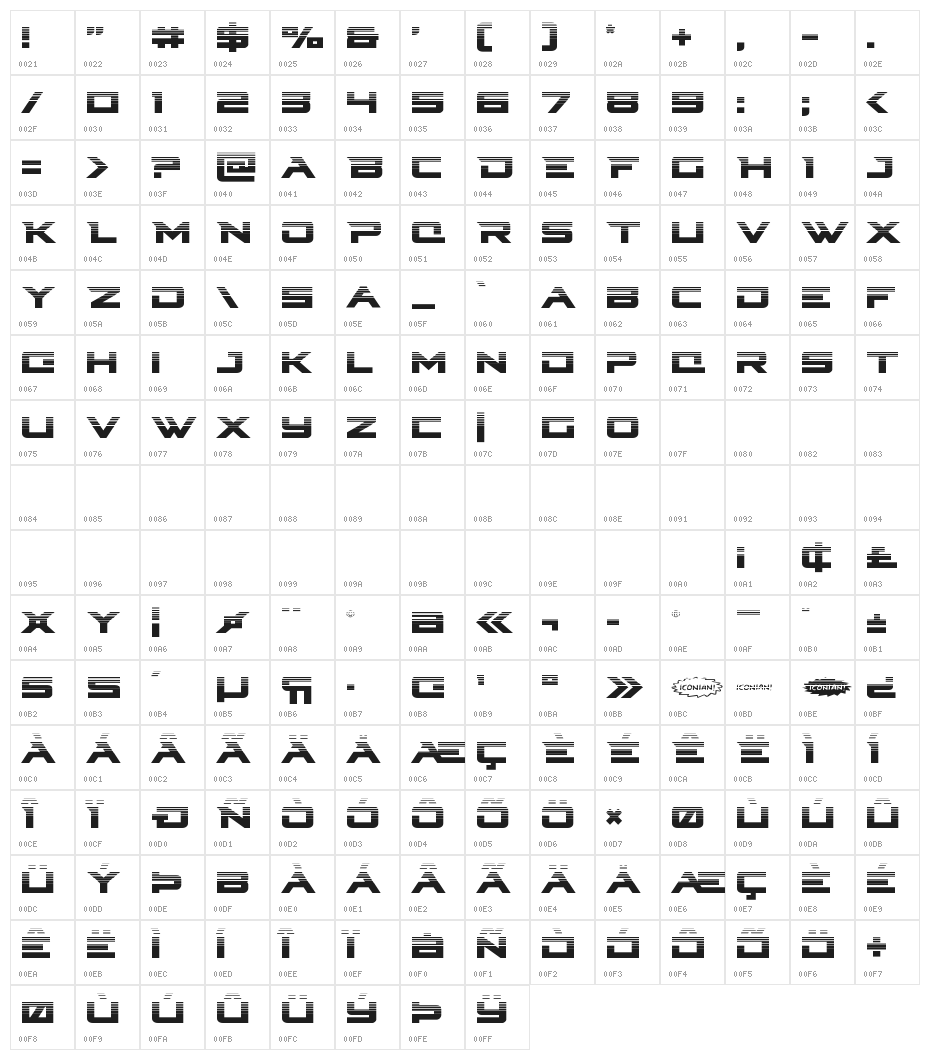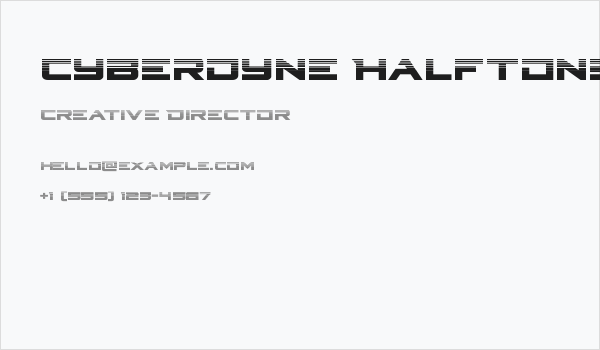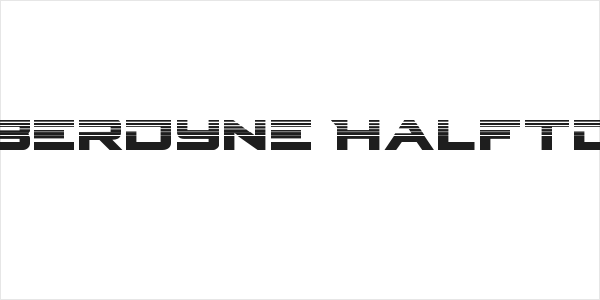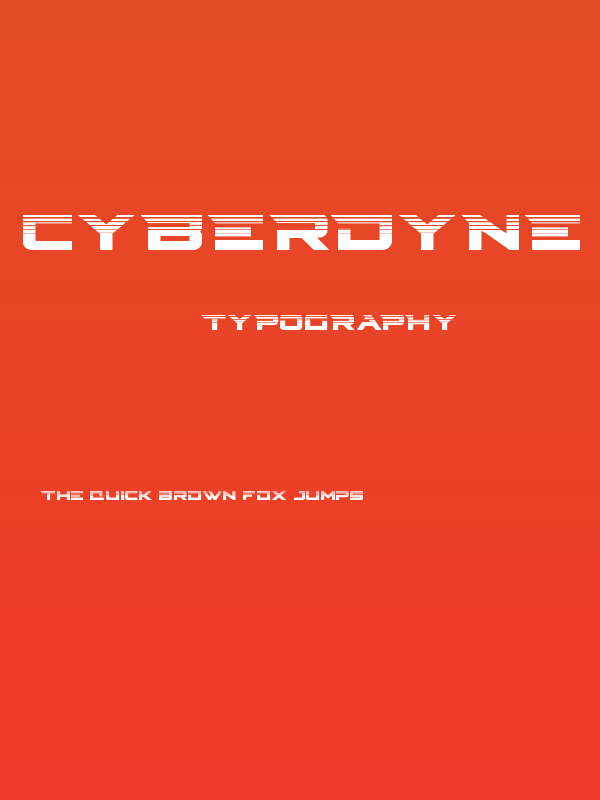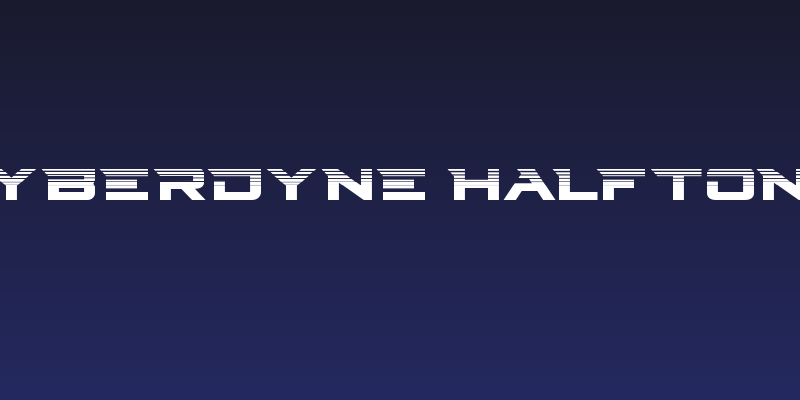
Cyberdyne Halftone Font
Cyberdyne Halftone Description
This font features a futuristic and digital aesthetic with a halftone effect that gives it a unique, tech-inspired look. The characters are bold and geometric, with horizontal lines running through each letter, creating a sense of movement and modernity. The uppercase and lowercase letters maintain a consistent style, emphasizing sharp angles and clean lines. The numbers and special characters follow the same design principles, ensuring a cohesive appearance across all glyphs. This font is ideal for projects that require a cutting-edge, digital feel.
| Proposed Projects | Ideal for technology branding, sci-fi movie posters, video game titles, and digital media. |